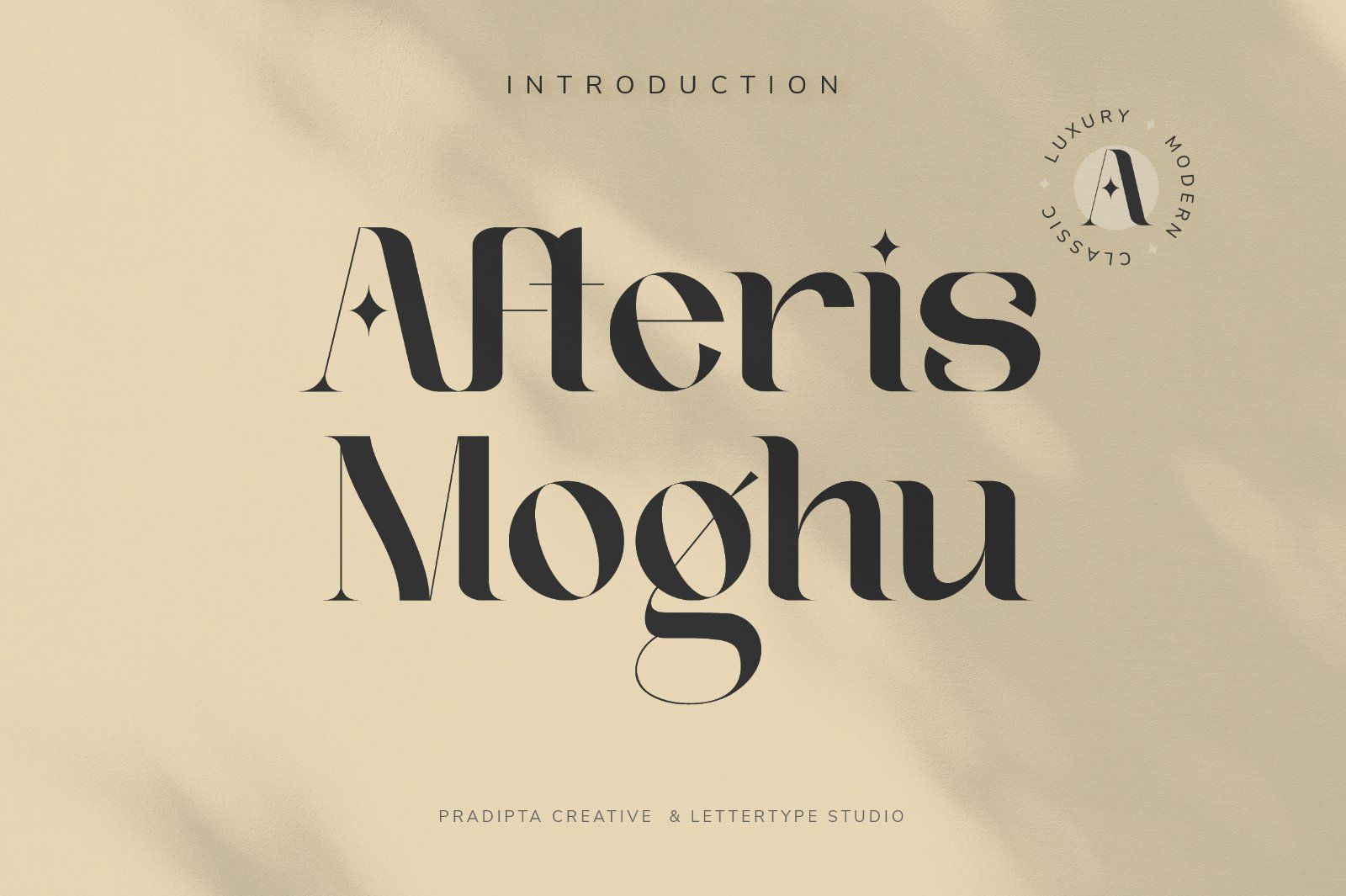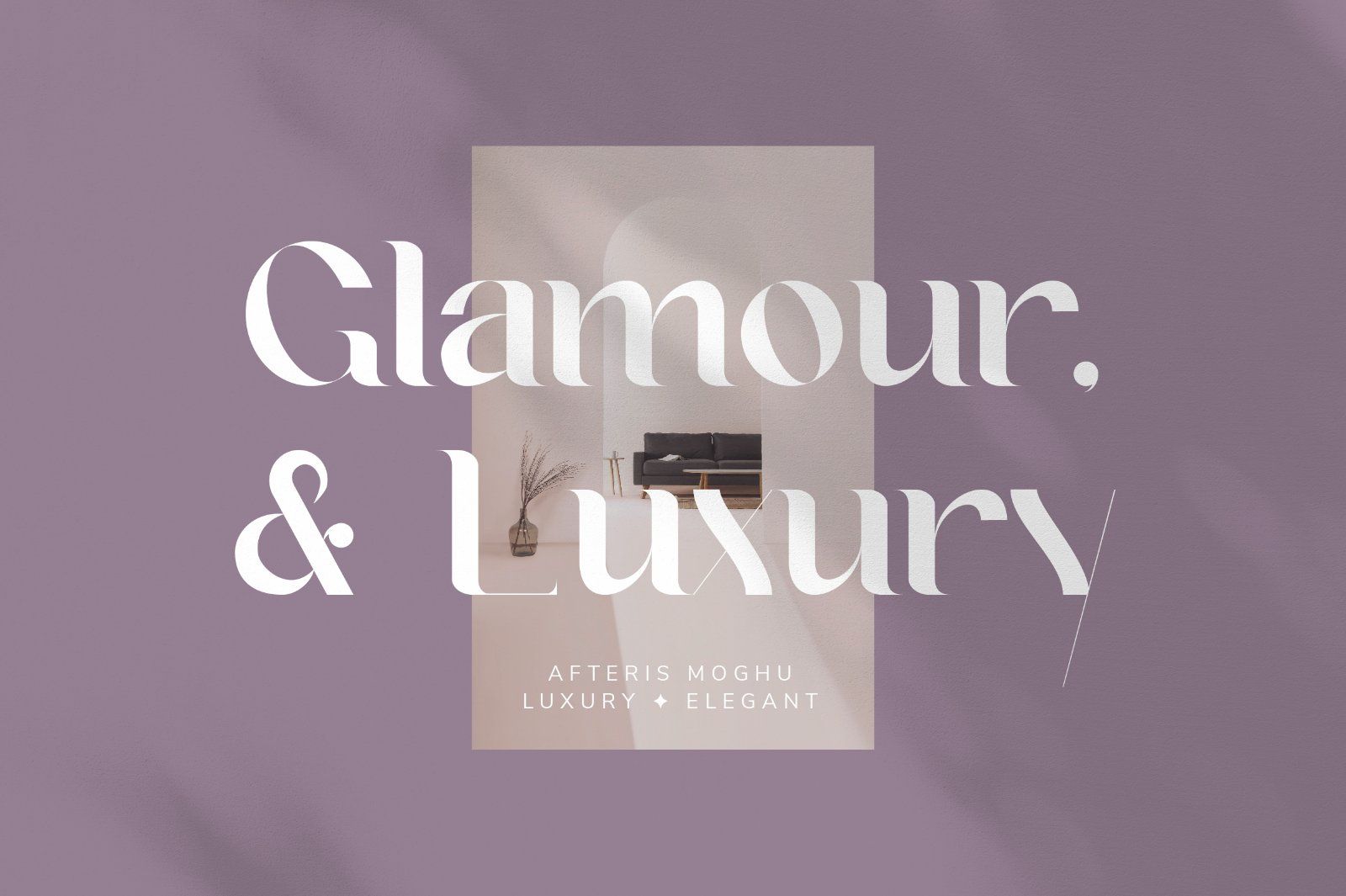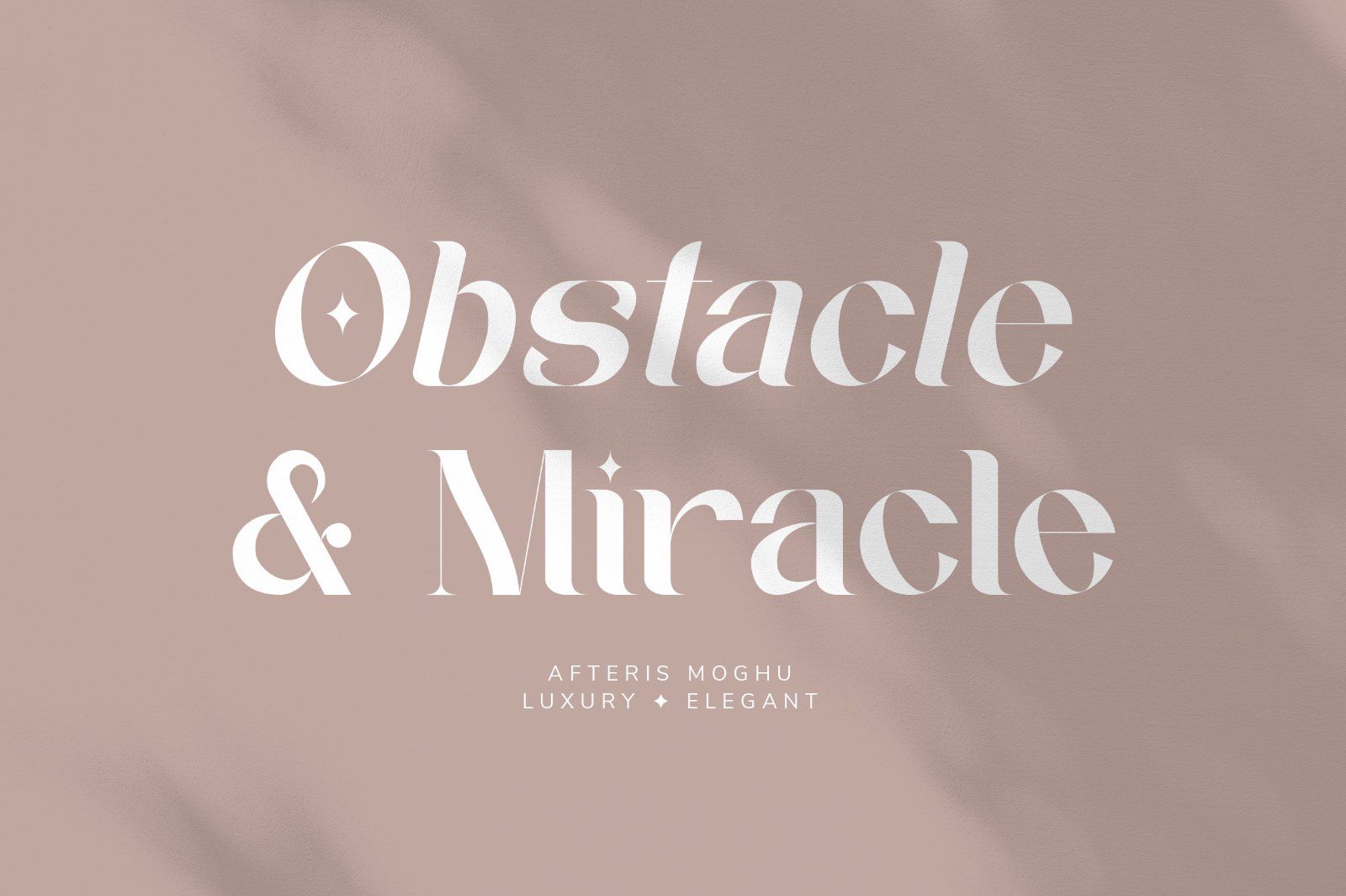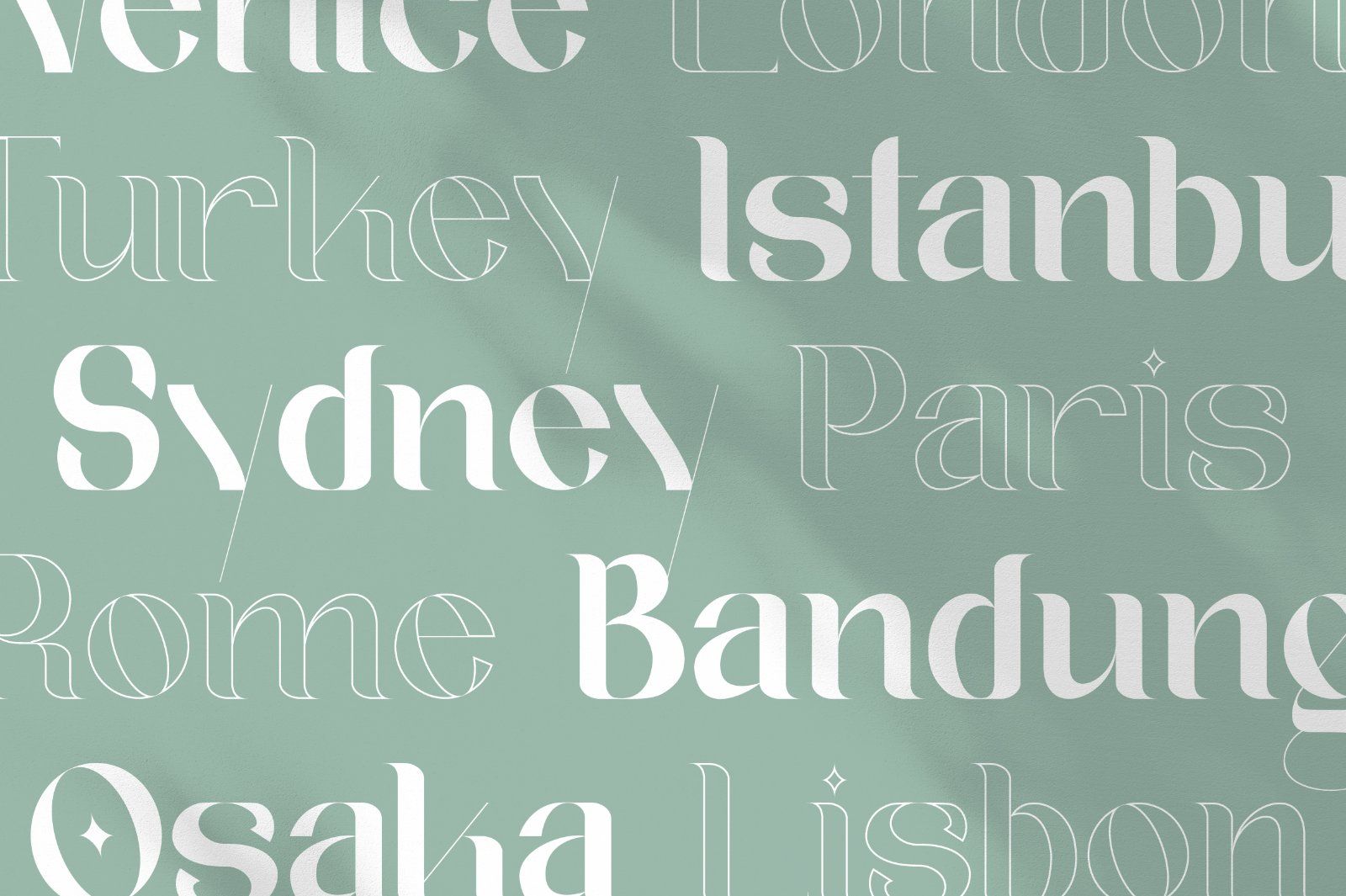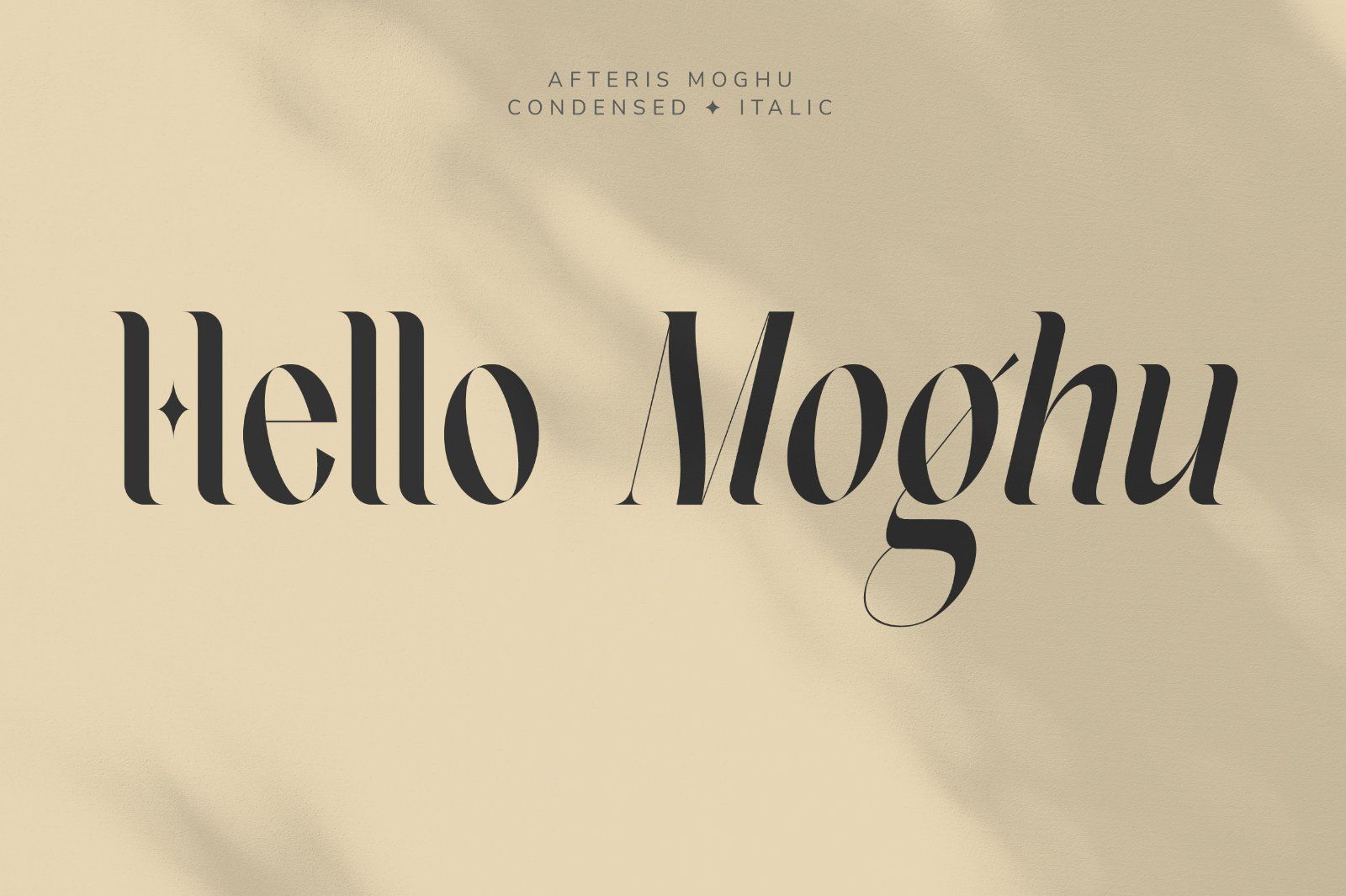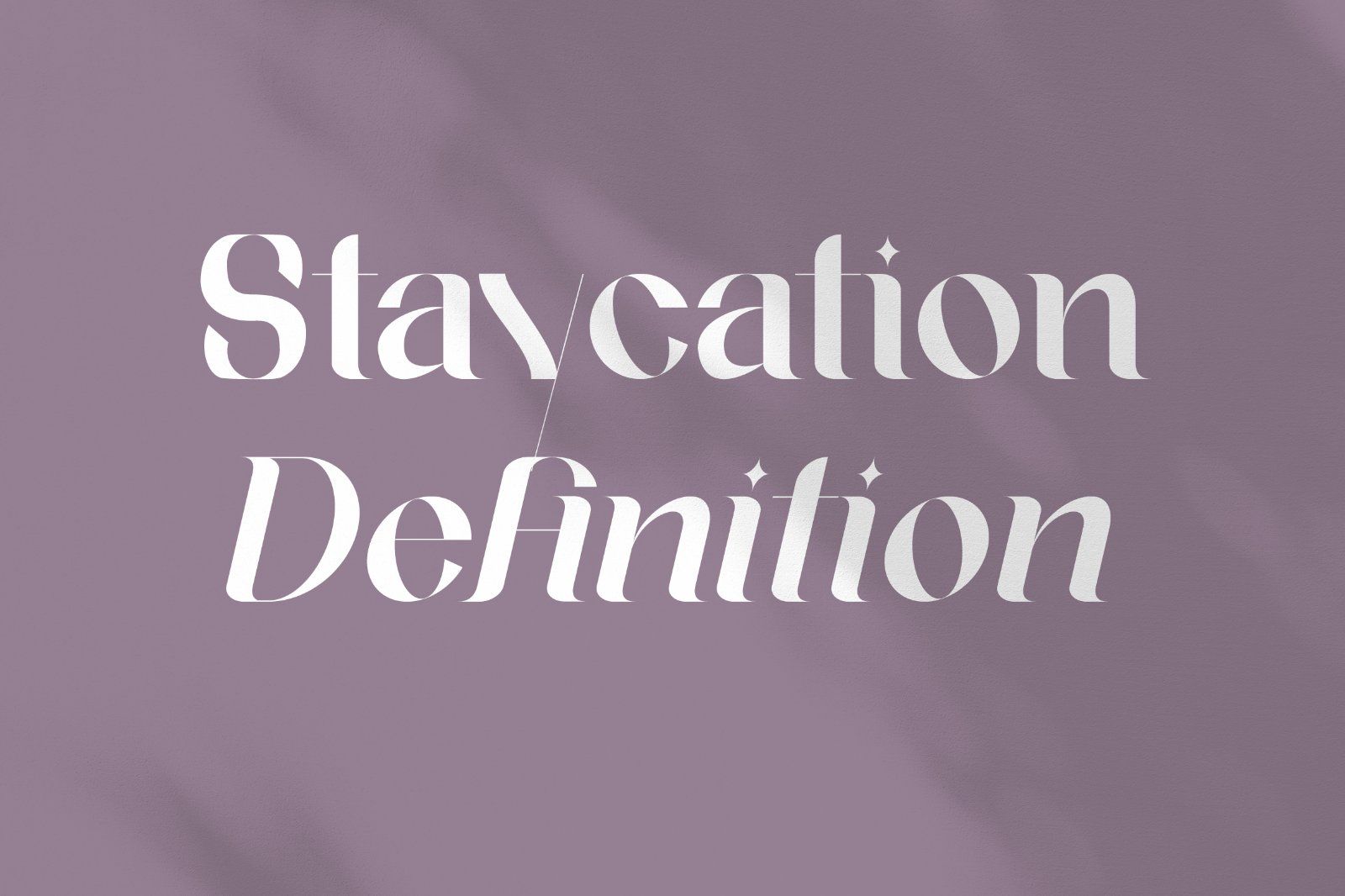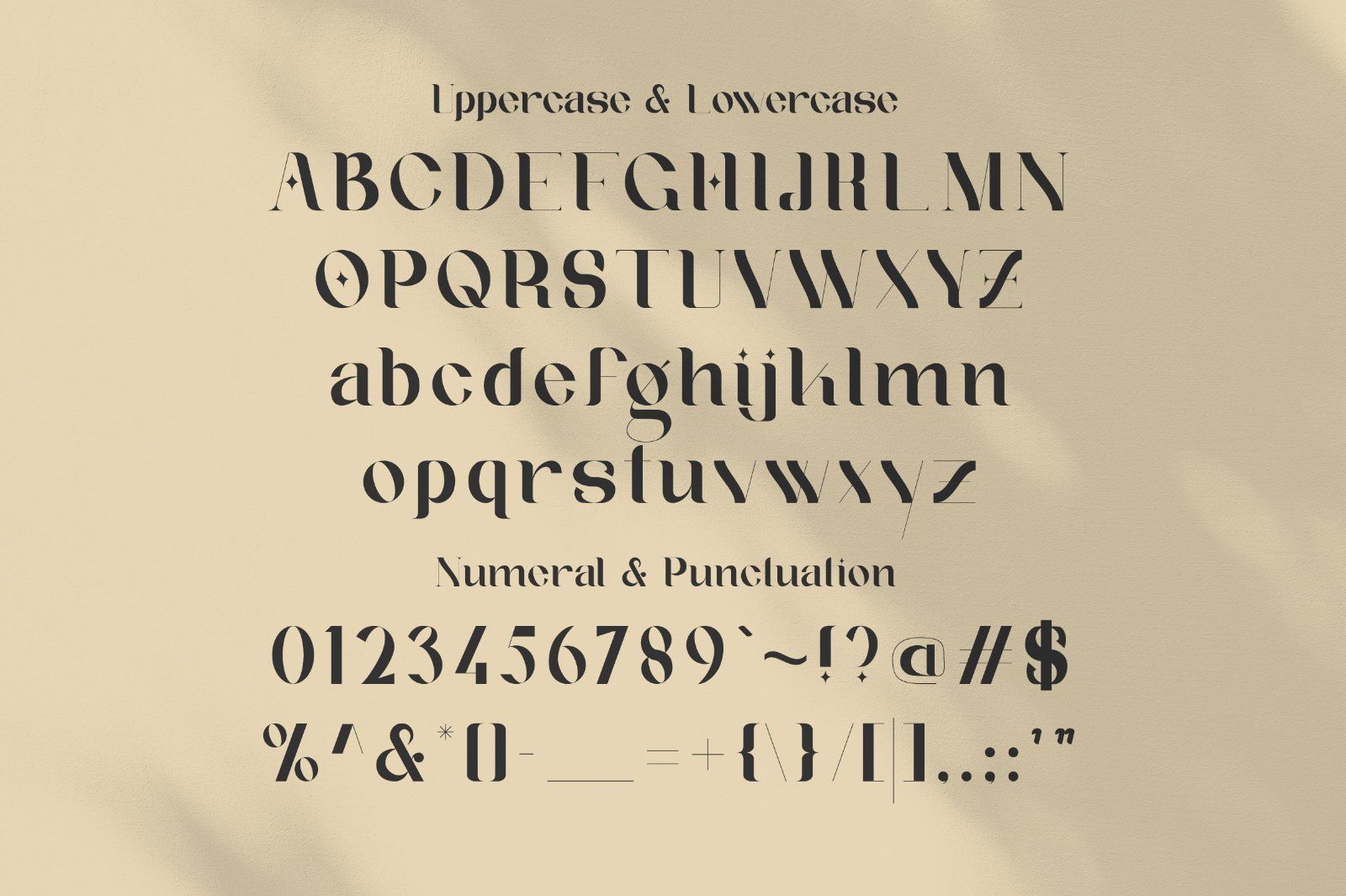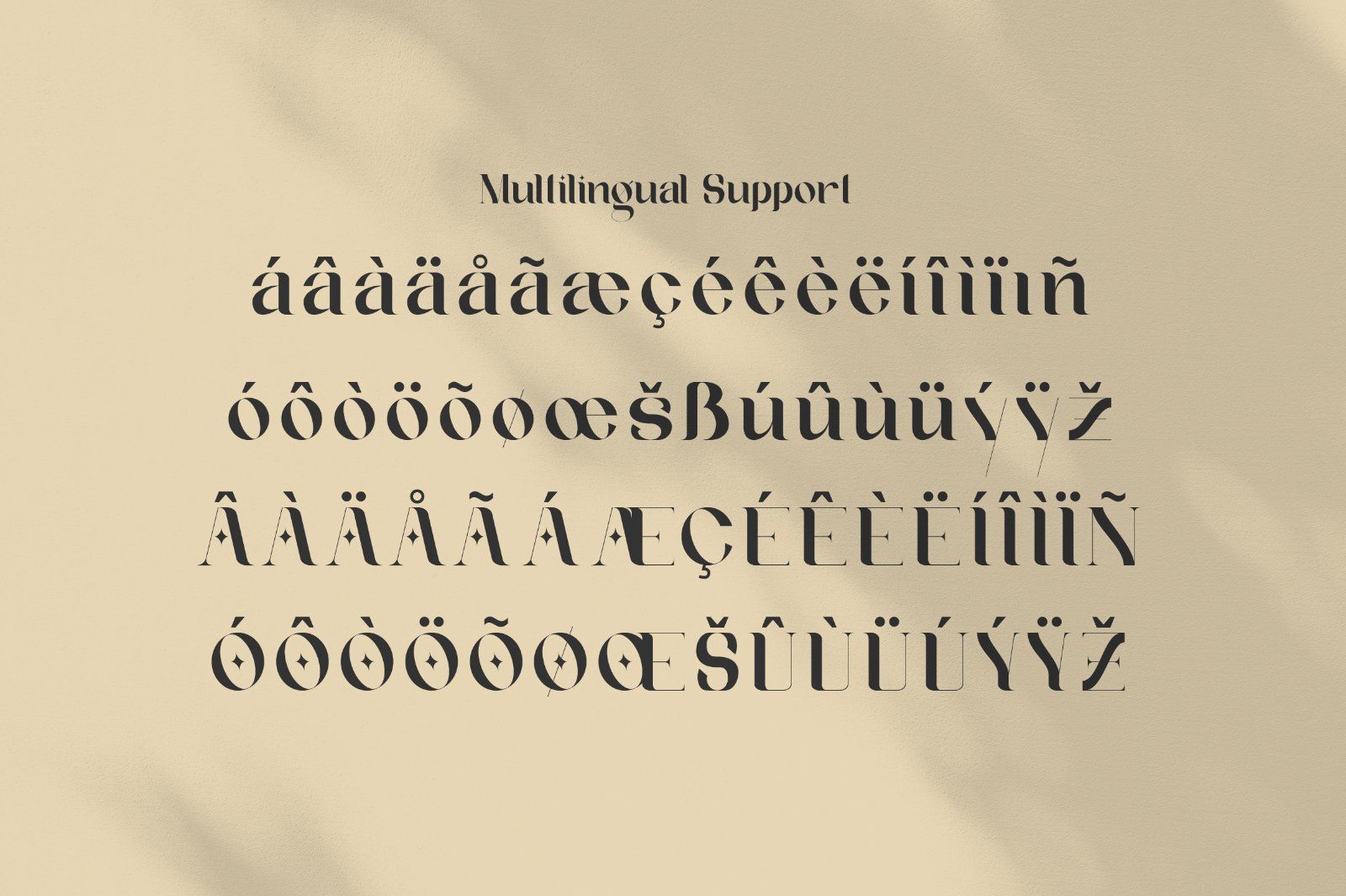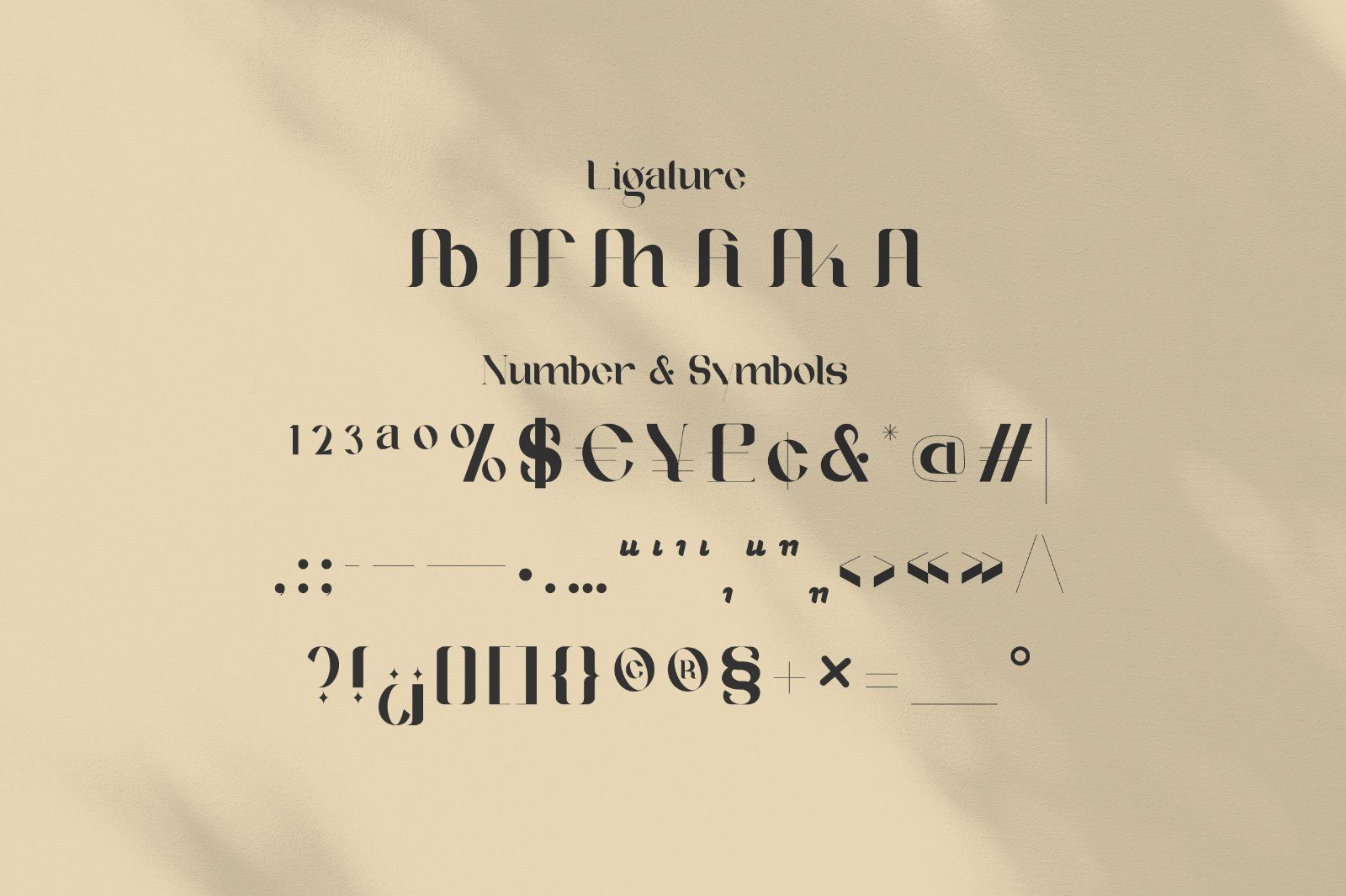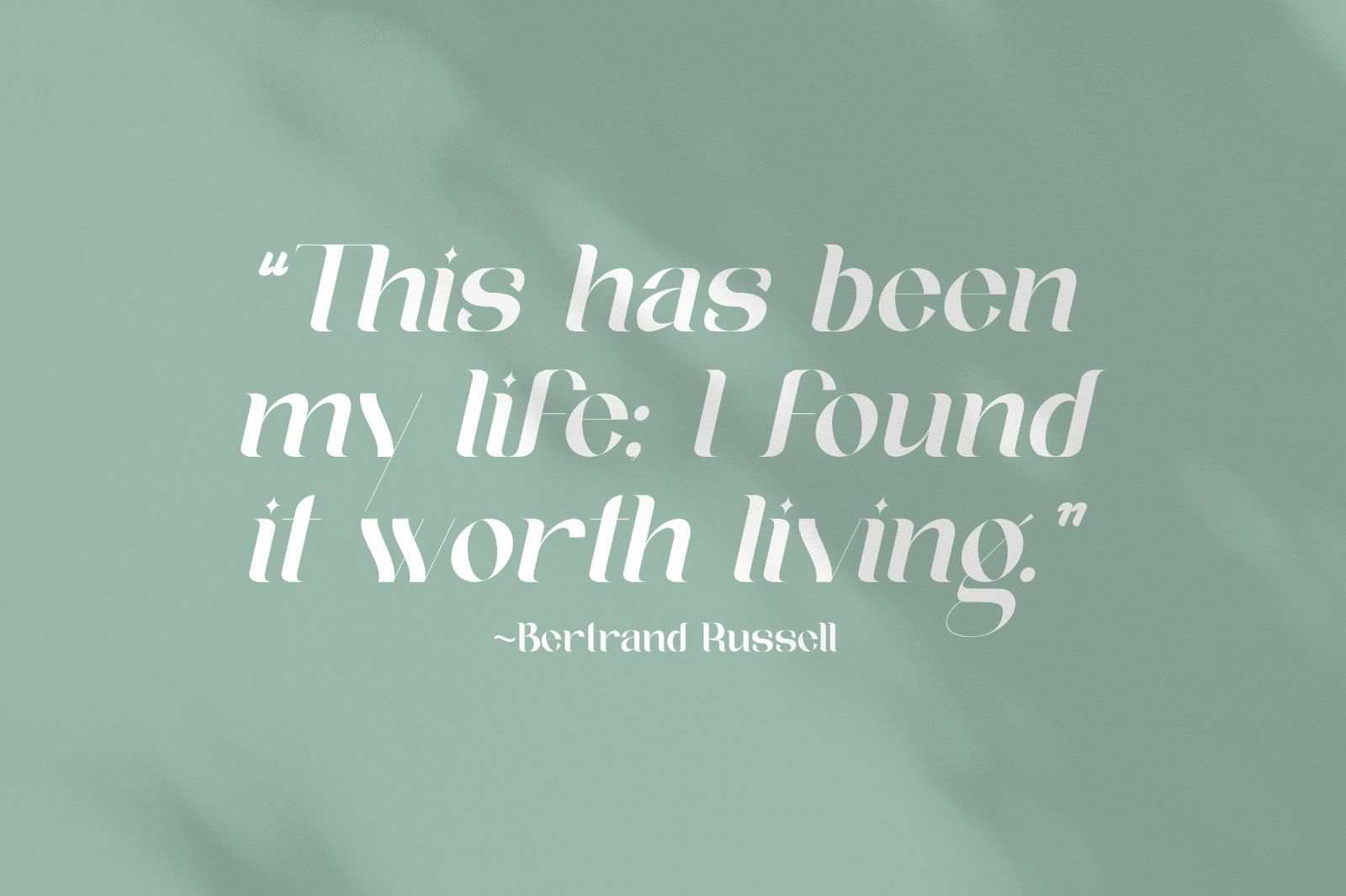
Afteris Moghu Serif is a modern, classic or vintage font. This font will be perfect for logo design, branding, clothing, signage, posters, wedding invitations and so much more! My goal in creating this font was to create a mix of serif fonts with modern and classic styles, which will help your project to be more perfect and beautiful. Don't Miss Out!
Afteris Moghu Comes With:
• Lowercase and Uppercase
• Stylistic Ligature
• Accented characters
• Afteris Moghu Font Style (5 style)
• Multiple Languages Supported